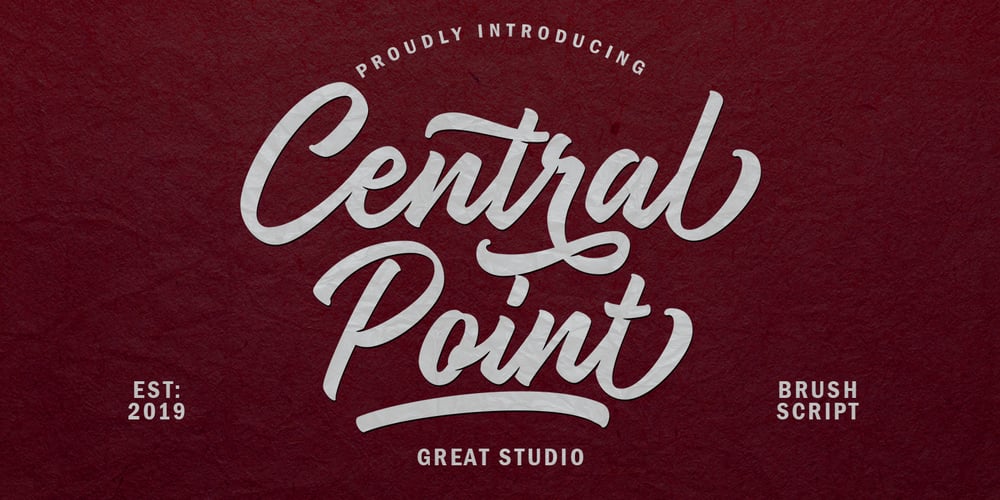
Central Point Font Family was designed by Mulkan Nazir and published by Great Studio. Central Point contains 1 styles and family package options. Central Point is a bold script font and a combination of original handwriting styles inspired by hand lettering. This versatile script includes many different alternatives for each lowercase letter, you can see some examples of design results in the preview image. This typeface works very well for logo design, clothing, handwritten quotes, product packaging, headers, posters, merchandise, social media, greeting cards and all your artwork. Central Point is equipped with uppercase and lowercase letters, numbers, punctuation and symbols, swash and ligature. It has Multilingual support. Thank you for purchasing our products and enjoy.